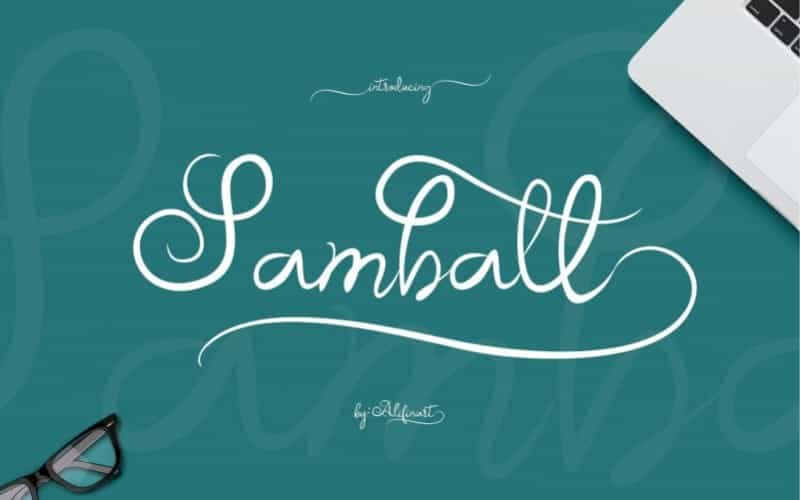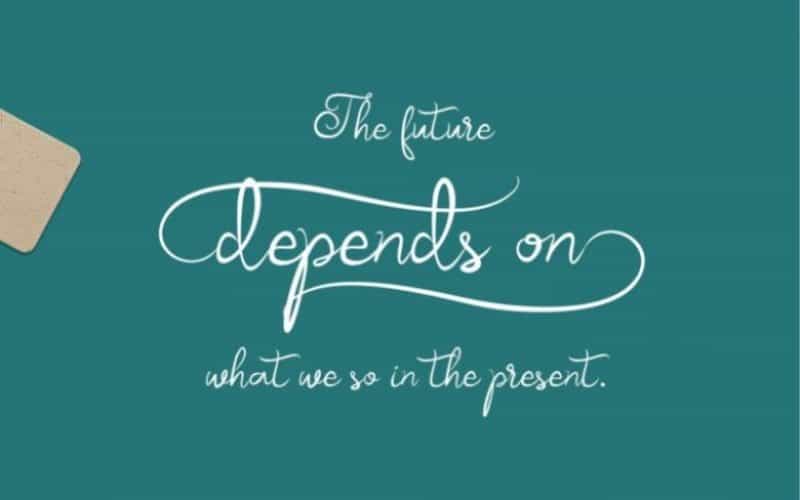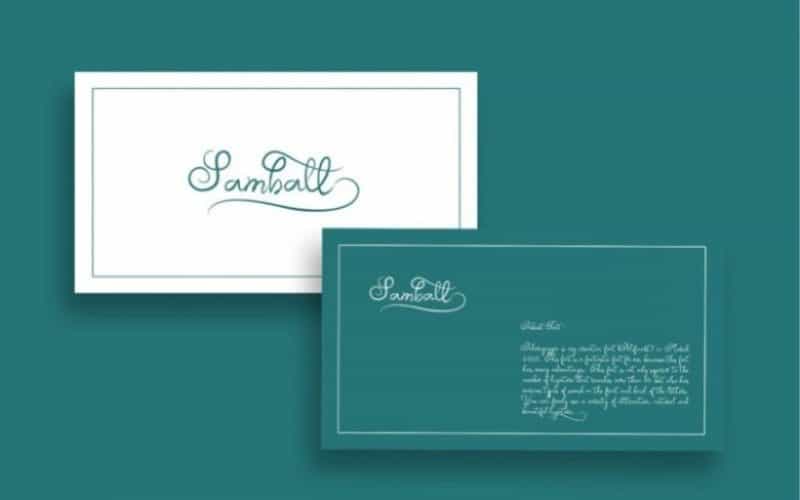
Samball is a superb font to me, because this font has many benefits. This font is not only better than the number of ligature which reaches more than 30, but also has different types of swash on the front and back of the letters. You can freely apply a number of pretty, natural and beautiful ligatures.